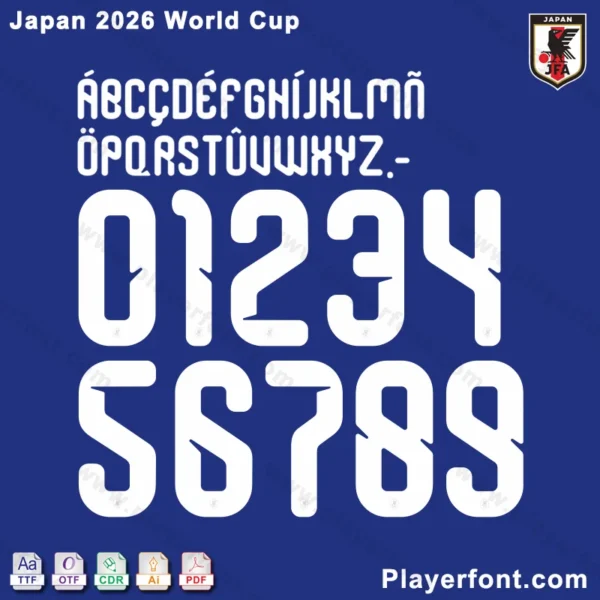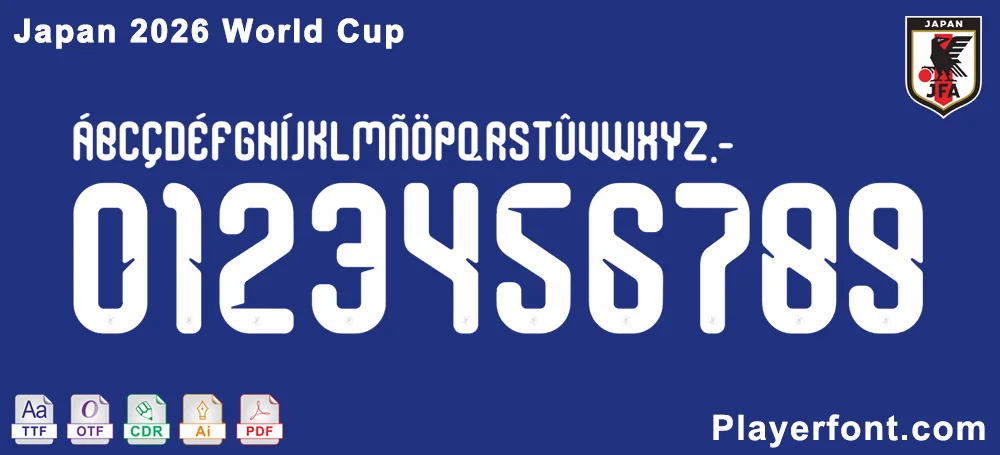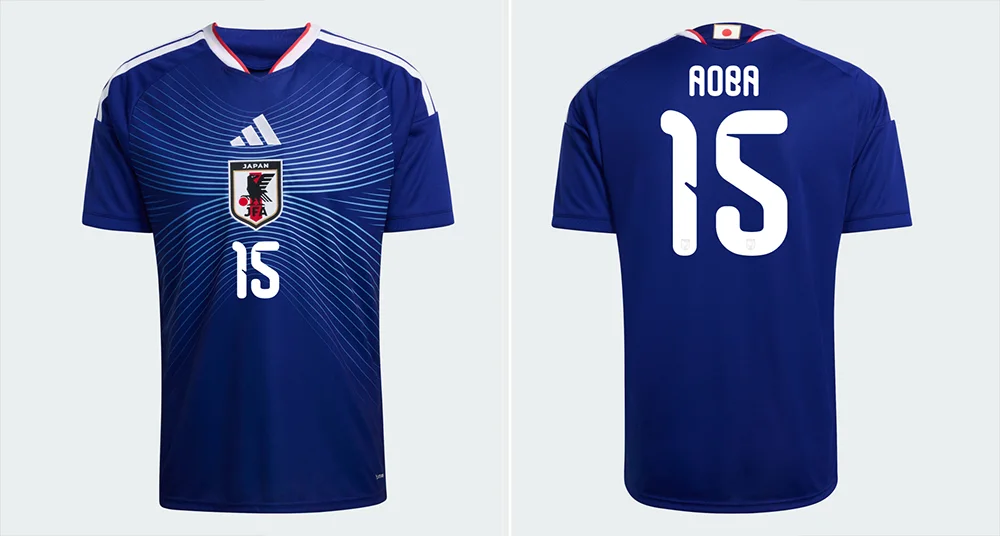
A closer look at the Japan 2026 World Cup Font’s letters and numbers, showcasing its unique design and soccer-themed aesthetics.
Enhance your design work with the Japan 2026 World Cup Font, a uniquely designed typeface inspired by Japanese soccer heritage and the excitement of the 2026 World Cup. Whether you’re crafting fan art, sports marketing materials, branding assets, or artistic creations, this font package offers unmatched versatility and visual appeal.
Official Japan 2026 World Cup home jersey by Adidas, showcasing the front with JFA crest and number 15, and the back with player name “AOBA” and number.
The font features distinctive Japanese soccer-inspired details in its letters and numbers, making it a perfect fit for World Cup-themed projects, Japanese sports blogs, soccer team merchandise, and any design needing a bold, dynamic aesthetic.